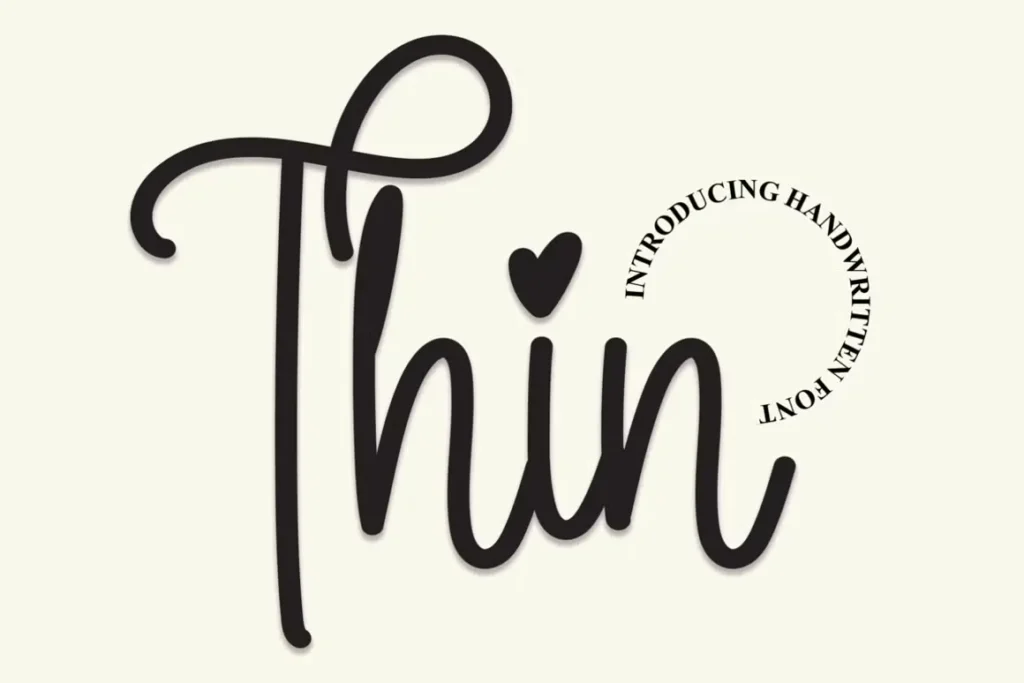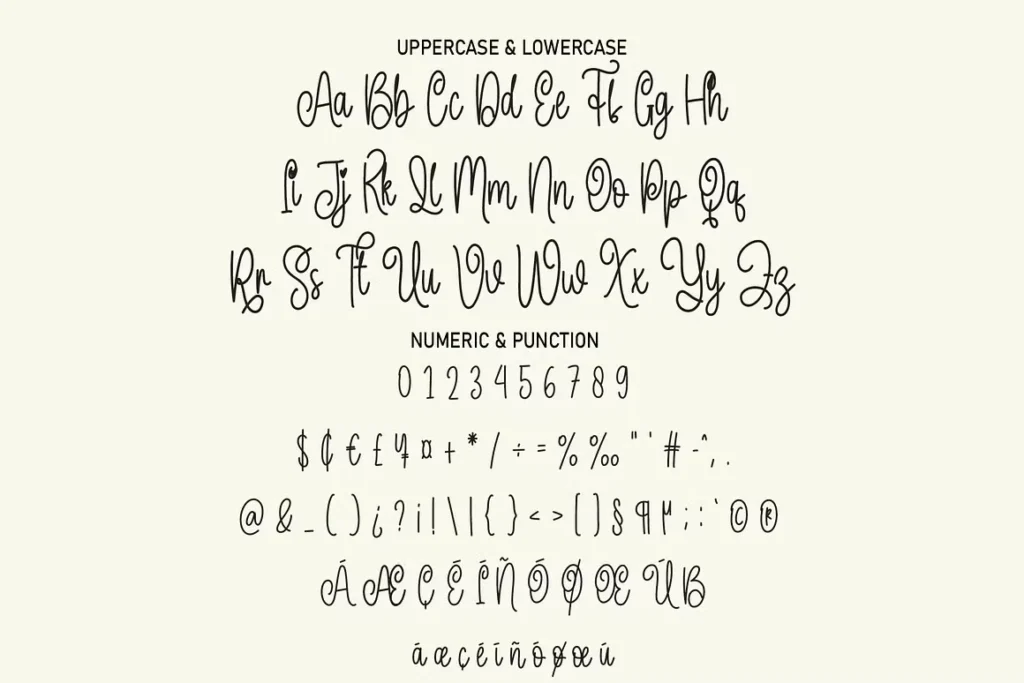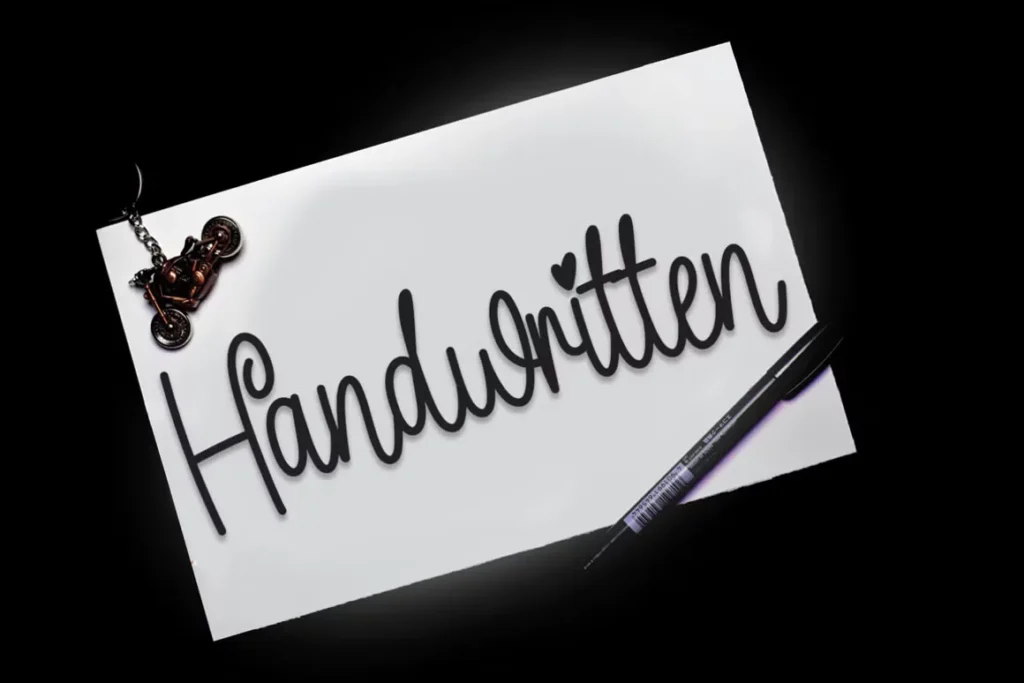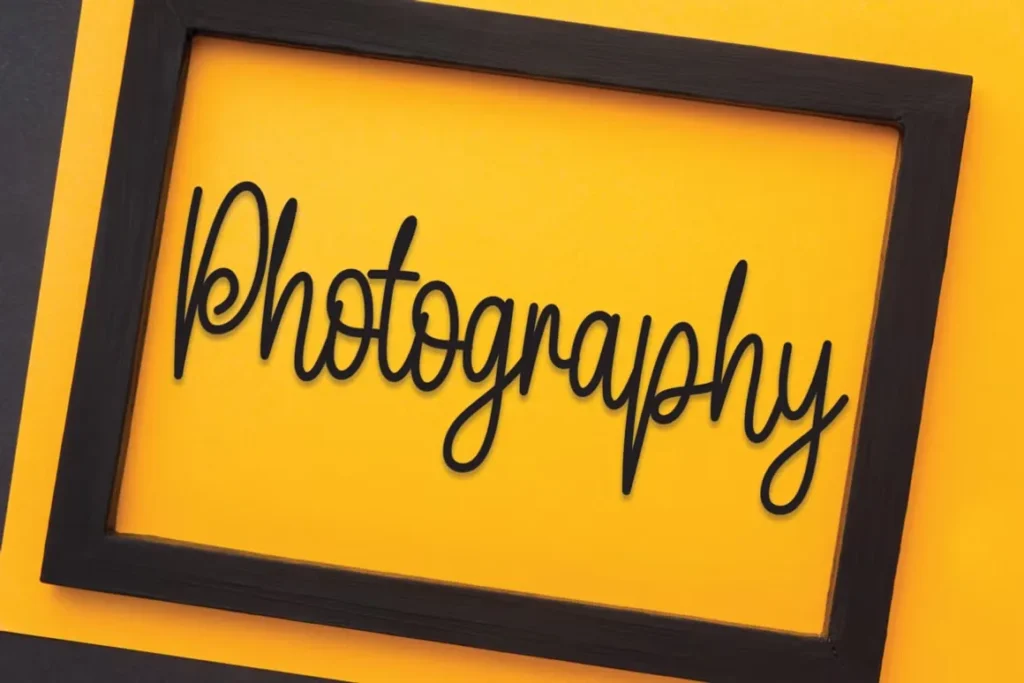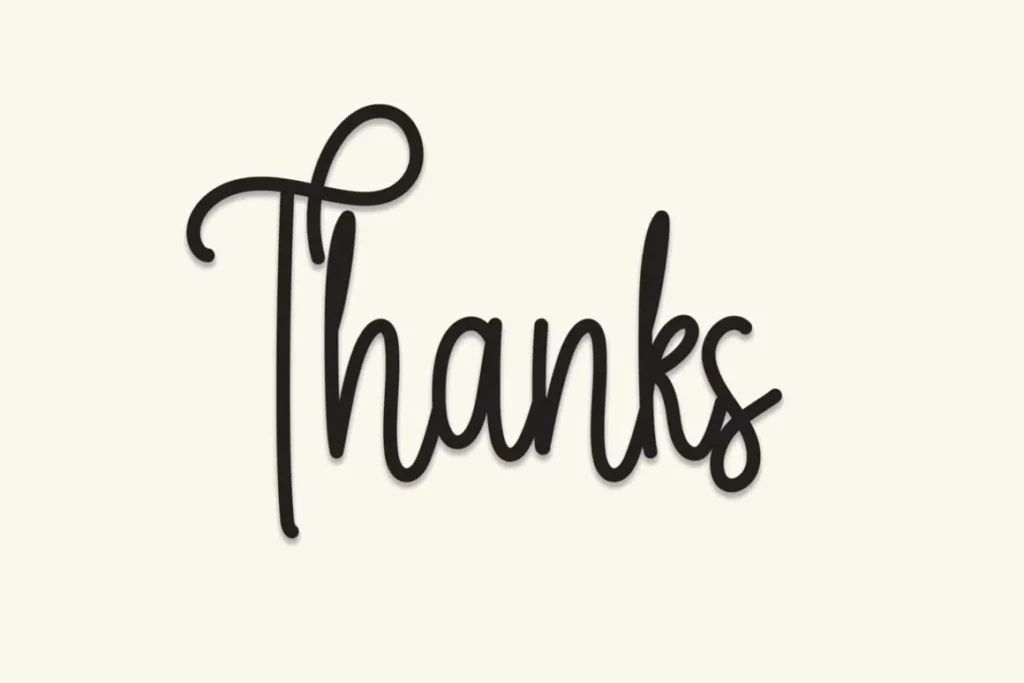
Thin Script Font
About Thin Script Font
I stumbled upon Thin Script Font while searching for the perfect typeface for a luxury skincare brand project last month. As a typographer and graphic designer for over 8 years, I’m always on the hunt for fonts that communicate elegance without feeling stuffy. This thin script immediately caught my eye with its delicate strokes and flowing ligatures.
I’ve since incorporated it into three client projects—a wedding stationery suite, a boutique logo, and product packaging. The versatility surprised me! Each application felt unique despite using the same typeface. I’m sharing this review because I genuinely believe it’s worth adding to your collection if you design anything requiring a touch of sophistication.
The Font and Its Creator
Thin Script Font, designed by the talented team at Scratchones, represents modern calligraphy at its finest. This script typeface strikes the perfect balance between contemporary design and classic handwritten style. Unlike many thin fonts that sacrifice readability for aesthetics, this particular script maintains clarity while delivering elegance.
The designers clearly understood the market need for a versatile thin script that works across multiple applications. Each character shows thoughtful attention to stroke weight variation—thicker downstrokes contrast beautifully with hairline upstrokes, mimicking the natural flow of calligraphy pens.
What makes this font stand out in the crowded script market is its consistency. Many handwritten-inspired fonts suffer from awkward letter connections or spacing issues, but Thin Script Font maintains perfect flow throughout. The slight slant gives it movement without feeling overly dramatic or formal.
For typography enthusiasts looking to explore thin script options, this font offers more personality than standard offerings at MyFonts or typical wedding-focused script options. Each character feels carefully crafted rather than digitally manufactured, giving your designs an authentic signature quality that clients immediately respond to.
Features of Thin Script Font
Thin Script Font comes packed with impressive features that make it worth the purchase. The complete character set includes upper and lowercase letters with beautiful flowing connections. Numbers and punctuation marks match the script style perfectly, ensuring consistency across all text elements.
One standout feature is the extensive ligature set. When working in design software that supports OpenType features, certain letter combinations automatically connect with special flourishes, creating a truly custom look for each word. This makes stationery text and signature-aesthetic logos look hand-drawn rather than typed.
The stylistic alternates truly elevate this font to professional status. With access to Adobe Illustrator, Photoshop, or InDesign, you can swap characters to create unique variations. This is particularly valuable for logo design—no two projects need to look identical even when using the same typeface.
The quality of the vector outlines is exceptional, allowing for clean scaling without jagged edges or distortion. This makes the font suitable for everything from tiny business card text to large-scale signage without losing its delicate charm.
Thin Script Font shines in projects that need a touch of elegance. Wedding invitations are an obvious choice—the font creates beautiful name displays and formal text that impresses guests. The flowing style works perfectly for signature-based logo design too, giving brands an authentic, personal feel.
I’ve found it particularly effective for packaging design. When printed on quality stock for cosmetics, specialty foods, or boutique products, it instantly communicates premium value. The thin, delicate strokes create a sophisticated image that helps justify higher price points.
Social media graphics benefit from this typeface too. When creating quote images or promotional materials, the script stands out in feeds crowded with basic sans-serif options. It photographs beautifully for Instagram and creates eye-catching Pinterest graphics.
For craft enthusiasts, this font works seamlessly with Cricut and other cutting machines. The clean vector outlines make it ideal for custom invitations, decals, and personalized gifts without technical issues during production.
Brochures and marketing materials gain an upscale feel when Thin Script Font is used for headlines or feature text. It pairs wonderfully with clean sans-serif body text, creating a modern yet timeless layout that appeals to luxury markets.